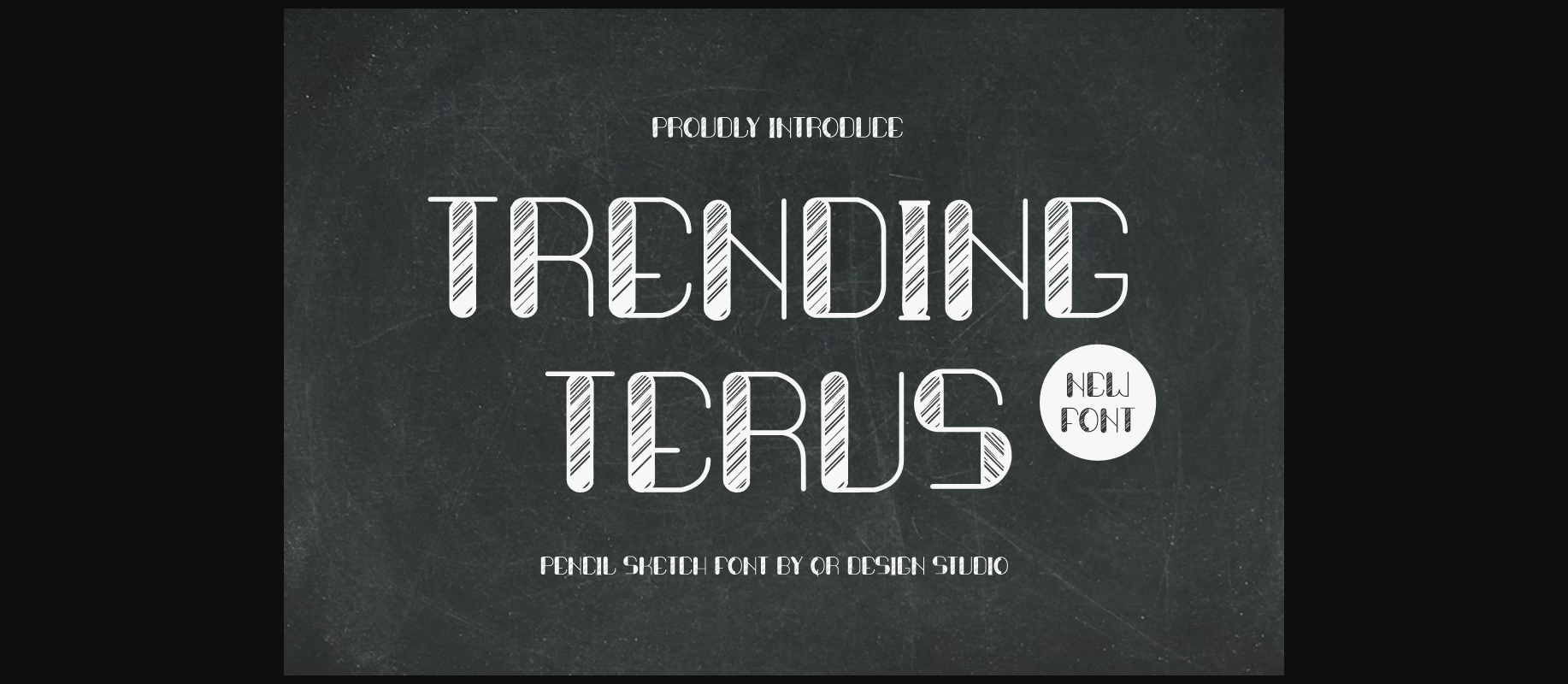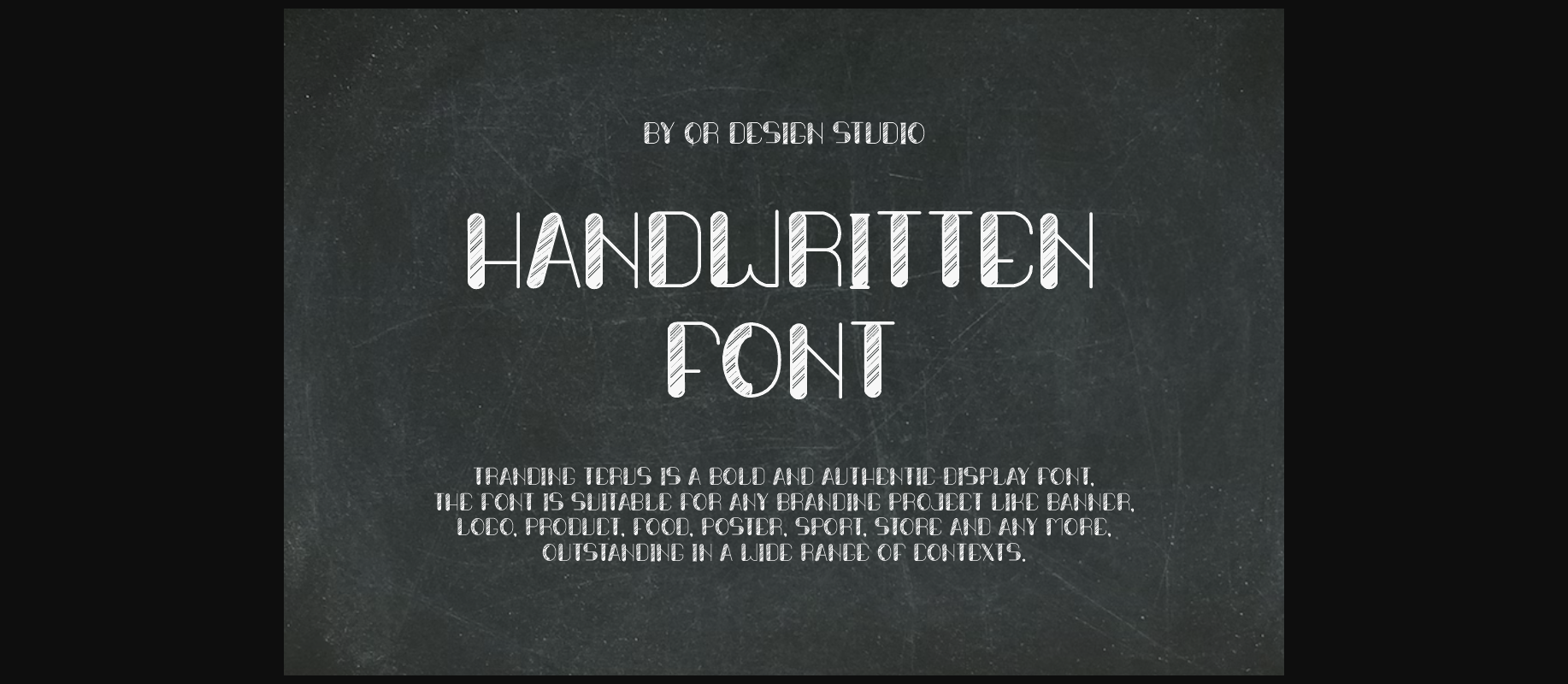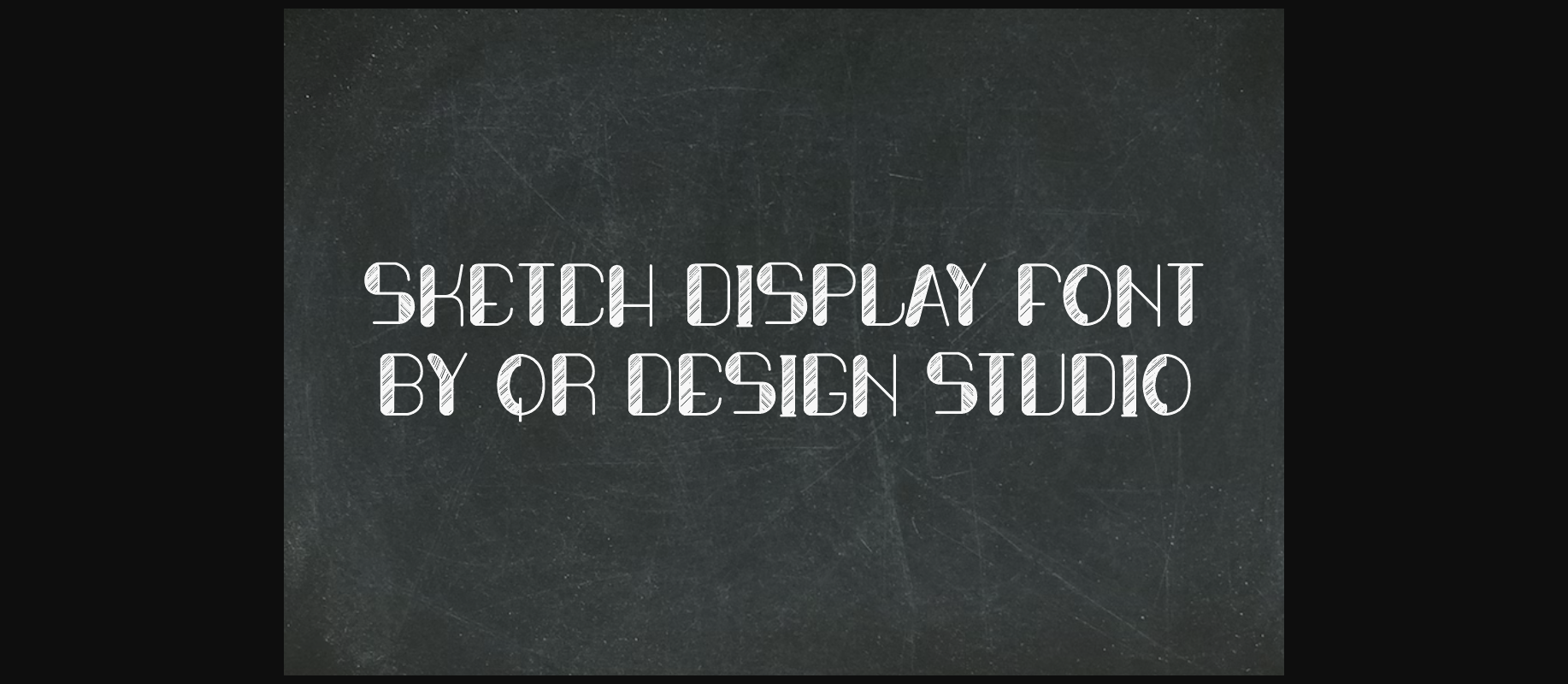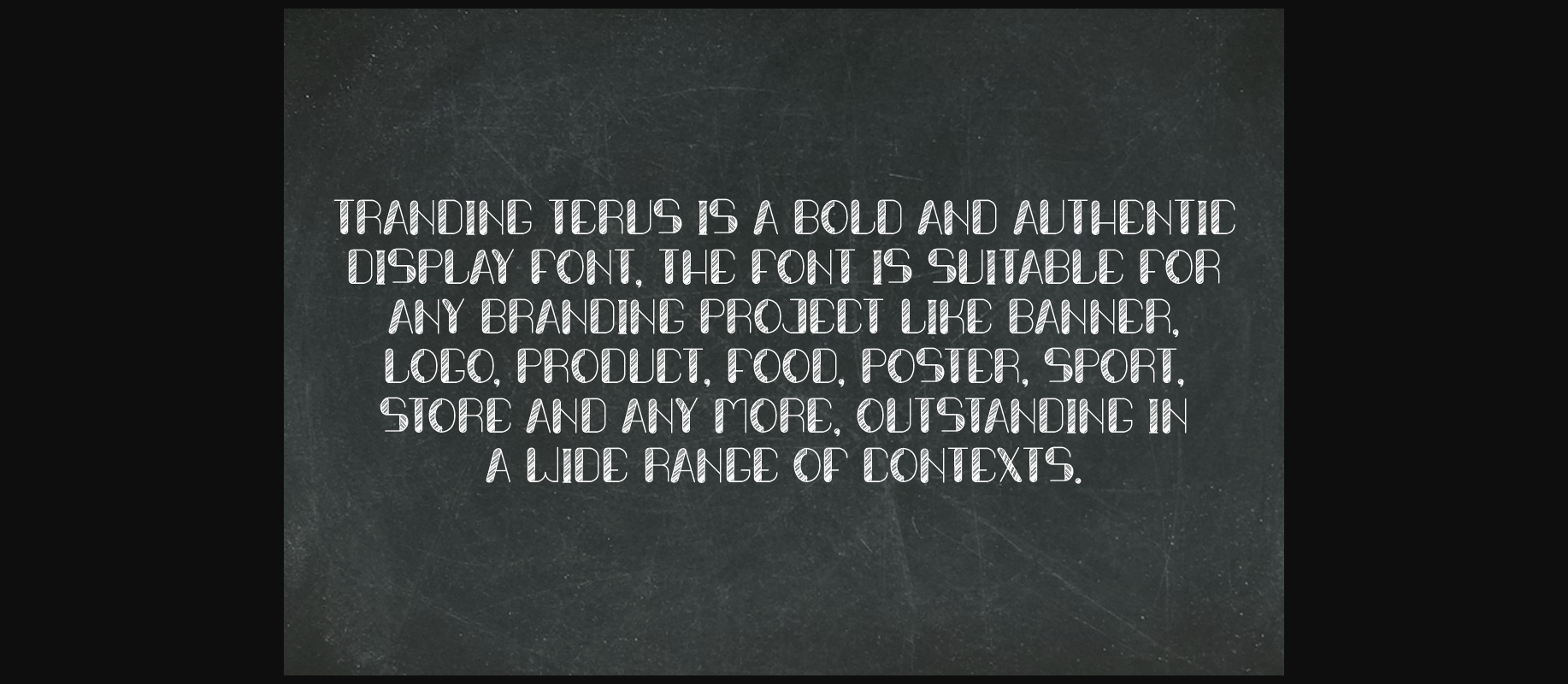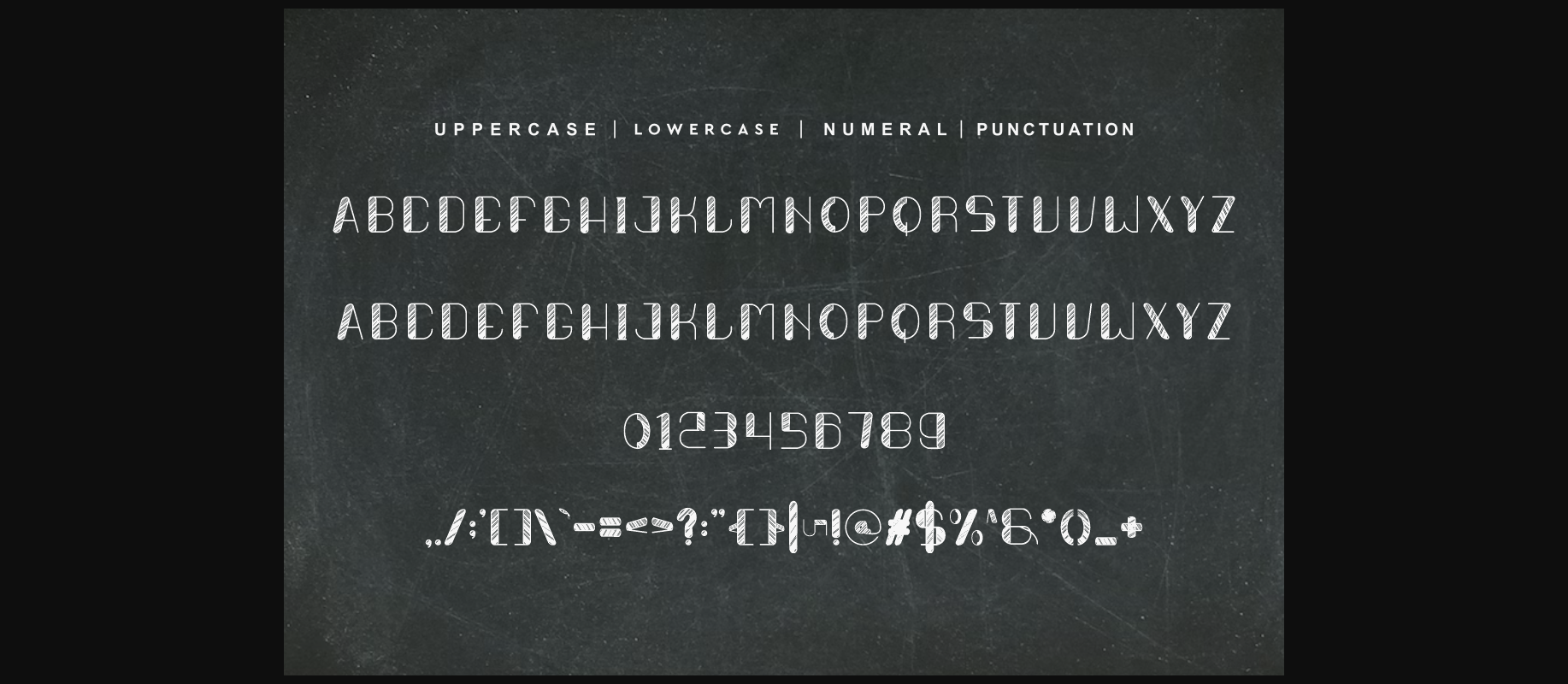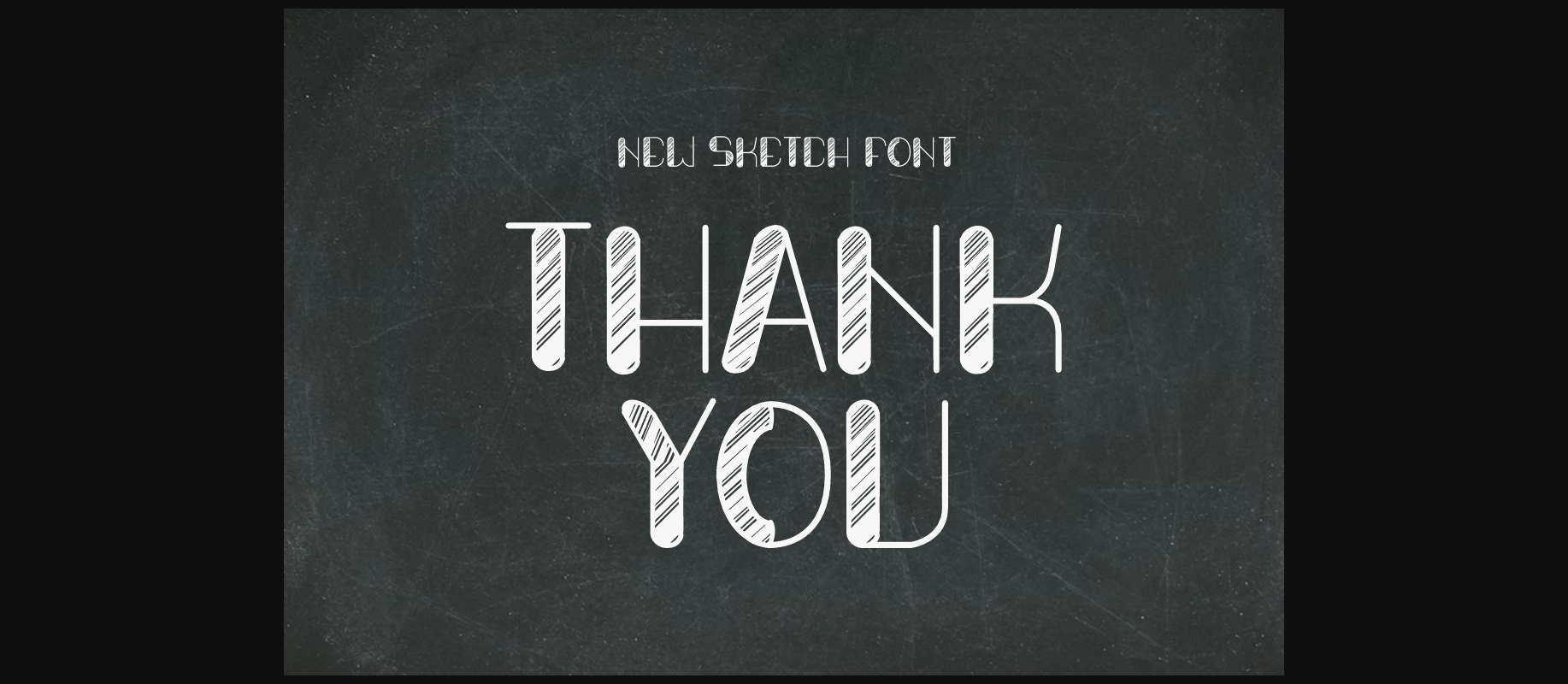
Trending Terus Font
About Trending Terus Font
Trending Terus is an incredibly unique display font. Masterfully designed to become a true favorite, this font has the potential to bring each of your creative ideas to the highest level!